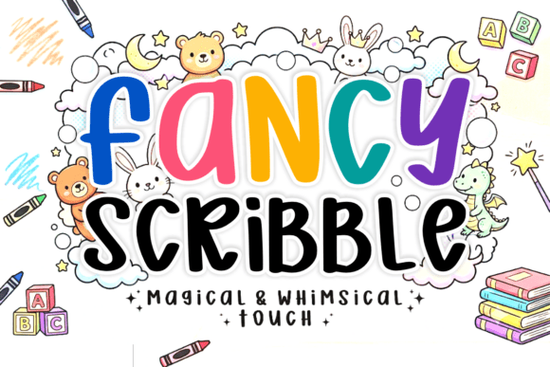
If you're looking for a hand-drawn display font that feels light, joyful, and full of personality without being overly cutesy or hard to read the Fancy Scribble Font is worth your attention. It’s designed for real-world use: think greeting cards, classroom posters, kids’ activity sheets, boutique packaging, or playful social media graphics. Unlike many script fonts that rely on tight flourishes or formal calligraphy, this one leans into relaxed, uneven strokes like something sketched quickly with a fine-tip marker. That gives it warmth and approachability, especially for projects aimed at children, educators, or anyone wanting to soften a design’s tone.
When does Fancy Scribble work best?
This font shines in contexts where authenticity and charm matter more than precision. You’ll find it especially useful for:
- Preschool learning materials labels, name tags, or themed worksheets where friendliness supports engagement
- Small-batch product labels (think handmade soaps, cookies, or candles) that benefit from a personal, artisanal feel
- Classroom decor like bulletin board headers or reading corner signs teachers often tell us it pairs well with tactile elements like paper cutouts or chalkboard textures
- Invitations and party printables for birthdays or baby showers, where whimsy fits naturally without feeling forced
It’s not intended for long paragraphs or body text it’s a display font, meant to draw the eye and set a mood. That said, its letterforms are clear enough at medium sizes (36pt and up) to avoid readability issues, even when printed on textured cardstock or used in layered digital mockups.
How does it compare to other hand-drawn fonts on Creative Fabrica?
While Weird Vault Font leans into surreal, slightly off-kilter energy, Fancy Scribble stays grounded in childlike sincerity. If you’ve used Gardenia Font, you’ll notice Gardenia has smoother curves and a more romantic, flowing rhythm great for weddings or botanical themes. Fancy Scribble, by contrast, keeps its lines bouncy and irregular, making it better suited for playful or educational settings.
For birthday-related projects, you might also consider our collection of wedding and birthday fonts, which includes options with more polish but if your goal is to evoke laughter, curiosity, or a sense of discovery, Fancy Scribble stands out for its gentle imperfection. Similarly, Preschool Poppers shares some of the same audience but uses bolder, more graphic shapes; Fancy Scribble offers a quieter, more intimate alternative.
Who’s using it and how?
We’ve seen crafters pair Fancy Scribble with simple line art icons (like stars, clouds, or animals) to build cohesive printable sets for Teachers Pay Teachers. Small businesses selling custom mugs or tote bags often layer it over soft pastel backgrounds it holds up well in both vector and raster workflows. One kindergarten teacher told us she uses it for her “Word of the Week” wall chart because students recognize the friendly shapes faster than with more stylized scripts.
It also works surprisingly well alongside clean sans-serifs. Try pairing it with a subtle weight of Montserrat or Open Sans for contrast headline in Fancy Scribble, body text in the neutral font. That combo avoids visual competition while keeping the layout warm and accessible.
If you’re new to working with hand-drawn fonts, keep an eye on kerning. Some letters like “r” next to “o” or “a” next to “w” may need slight manual adjustment in tighter layouts. Most users find that takes less than a minute per line, and the result feels more intentional than auto-kerned alternatives.
- Check your project’s tone is “playful but not chaotic” a good fit? If yes, Fancy Scribble will likely serve you well.
- Pair it thoughtfully avoid stacking multiple decorative fonts. Let Fancy Scribble be the voice; let supporting fonts stay quiet.
- Remember: it’s not for legal disclaimers, ingredient lists, or anything requiring strict legibility at small sizes.